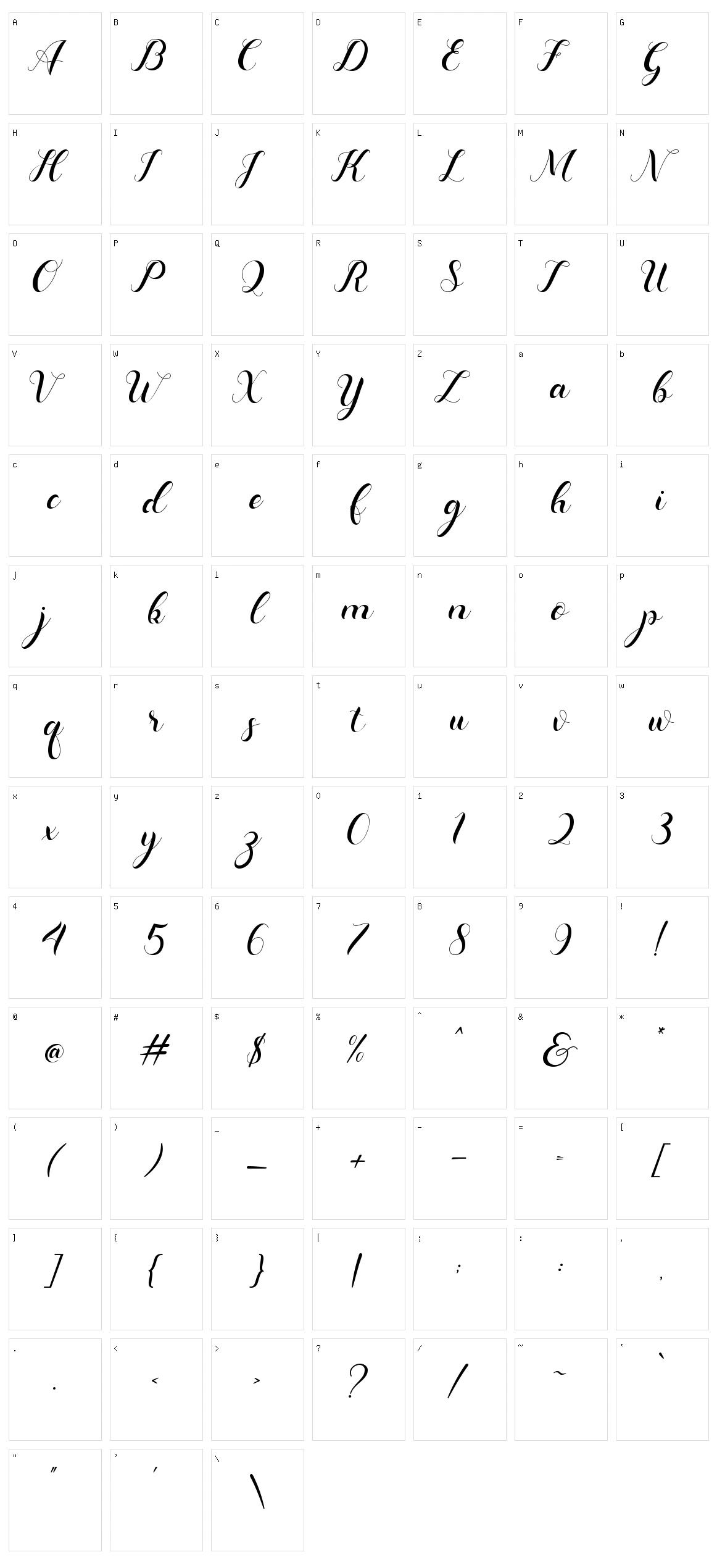
Dominica Calligraphy is a balanced, subtle, elegant and stylish handwritten font. It has beautiful character. This font comes with a matching Outline/Monoline version. Perfectly match the design of invitation cards, company logos, movie titles, movie names, business cards, book titles, brand names and various other designs. Dominica Calligraphy is a chic, refined script font that emanates sophistication and elegance. Its stylish alternates and ligatures make this font the perfect match for any project.
FEATURE :
- Ligature
- Uppercase and lowercase
- Numbering and Punctuation